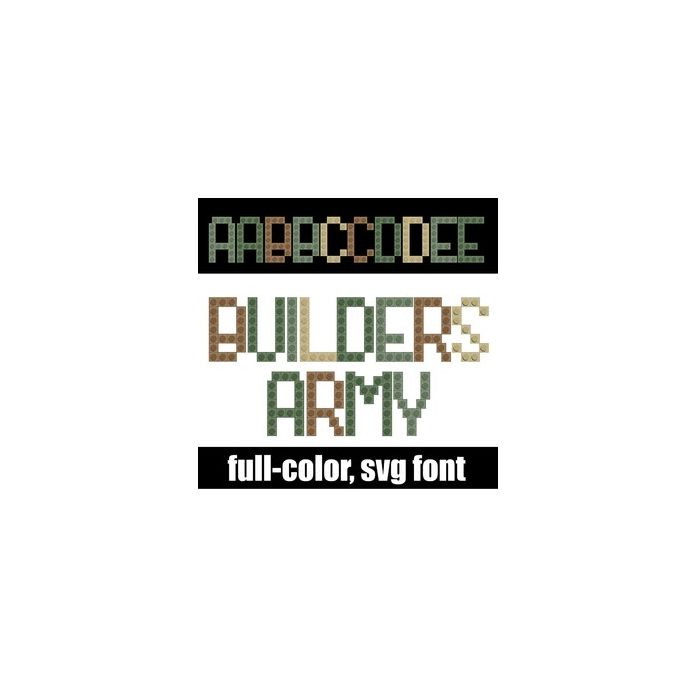
This full-color font features little building blocks in a military color palette. There is an alt case w/ additional colors you can access through your system or Silhouette's glyph map.